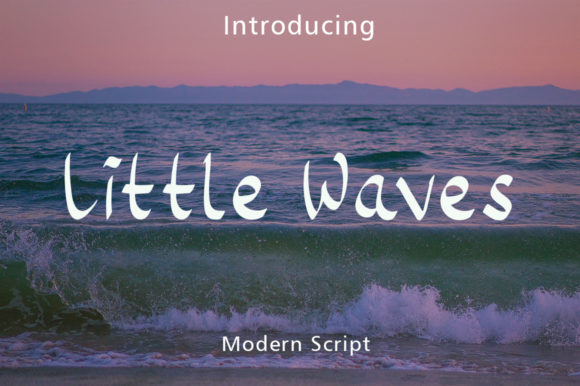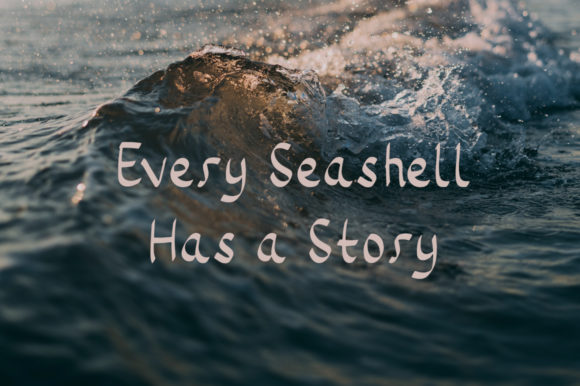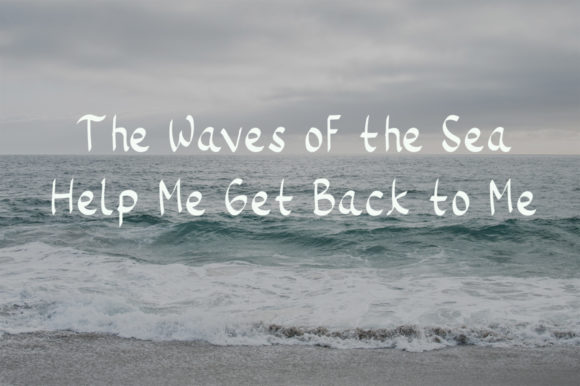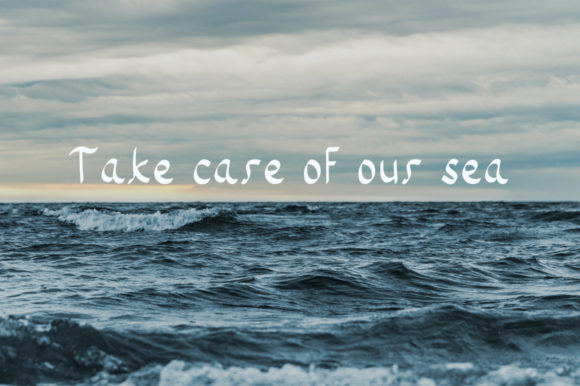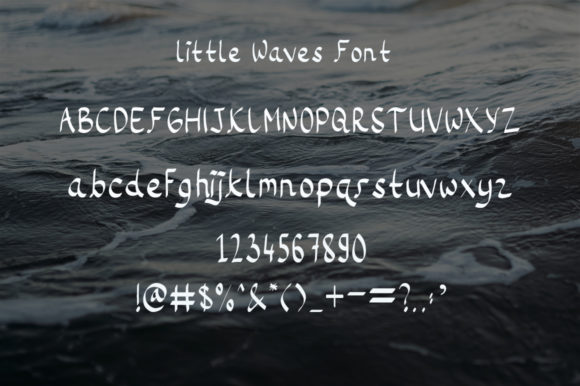
Little Waves Font
About Little Waves Font
Little Waves is a casual handwritten font, created by using a brush pen. Clean and a little bit quirky, this font is the perfect fit for all of your logos, branding, social media, and crafty DIY projects.